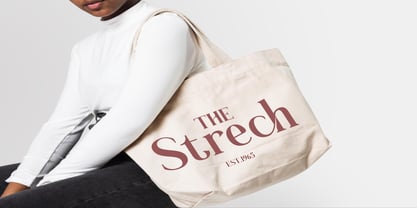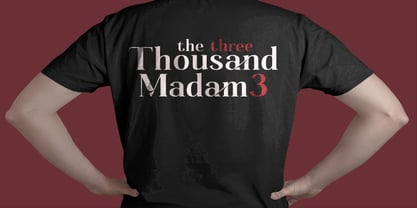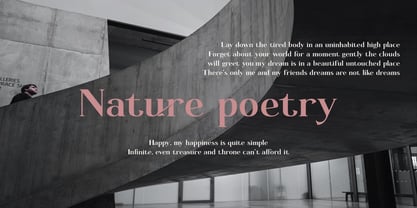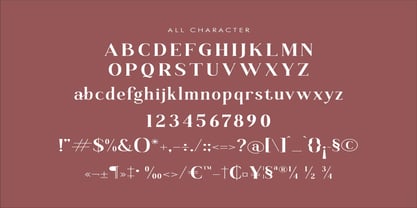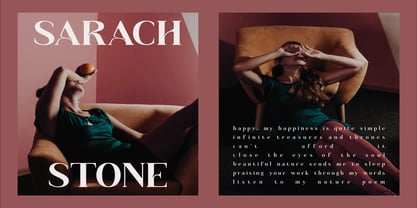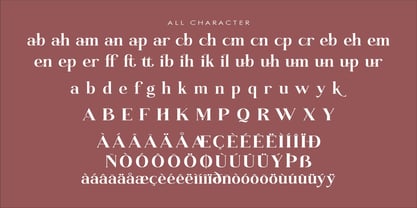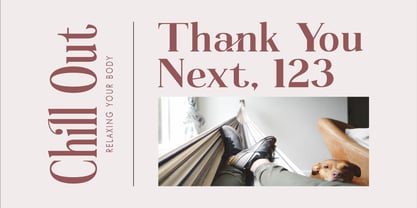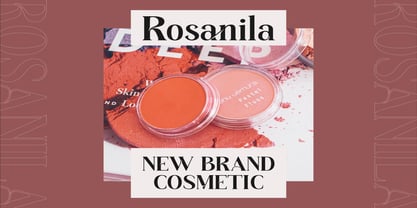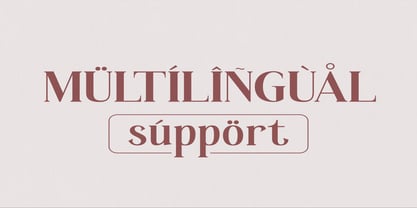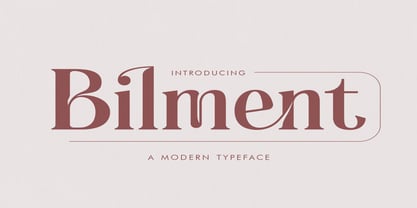
Bilment
The Bilment Font Family was designed by Heru Utama Putra and published by Letterena Studios. Bilment contains 2 styles and family package options.
Bilment is a classic serif typeface that has its own unique style and modern look.
This font is perfect for an elegant and luxurious logo, book or movie title design, fashion brand, magazine, clothes, lettering, quotes, and so much more.